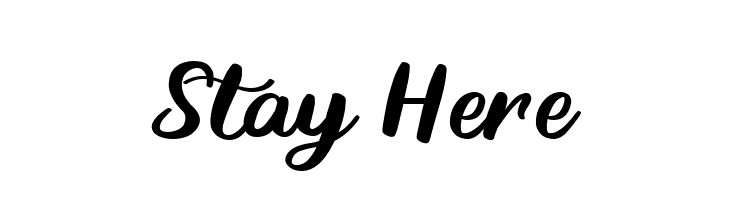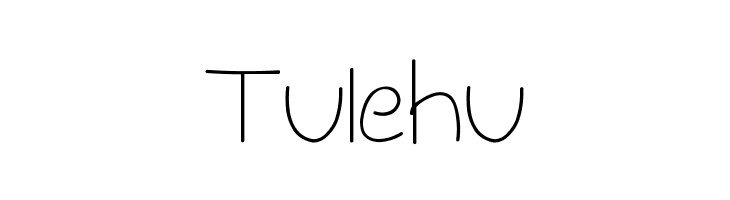
A bold, geometric font with sharp, angular edges and a modern style.
A bold, italicized font with sharp angles and dynamic slant.
A bold, handwritten-style font with dynamic uppercase letters.
A dot-based font mimicking LED displays with a modern, digital aesthetic.
A dot matrix font with a modern, digital aesthetic and italic style.
A playful handwritten font with rounded, consistent strokes and a casual vibe.
A bold, geometric font with an industrial, robust aesthetic.
A bold, italicized font with angular, modern design.
An expressive, cursive font with fluid, interconnected strokes and a calligraphic style.
A bold, cursive script font with smooth, connected strokes and elegant slant.
A playful, handwritten font with a bold and lively style.
A modern, clean sans-serif font with consistent stroke width and excellent readability.
A bold, italic font with a futuristic and angular design.
A bold, geometric font with a futuristic and industrial design.
A bold, italicized font with a modern and dynamic style.
A bold, geometric font with a futuristic and modern design.
A hollow, geometric font with a modern and technical style.
A modern, hollow italic font with a dynamic and futuristic style.
A modern, italicized font with a sleek, geometric design.
A playful and whimsical font with bold curves and sharp edges.
A bold, italicized font with sharp, angular edges and a dynamic slant.
A playful, handwritten font with a casual and lively style.
A whimsical, playful font with exaggerated serifs and a hand-drawn feel.
A bold, geometric font with strong, sharp angles and uniform structure.
A bold, italic font with a dynamic, angular design.